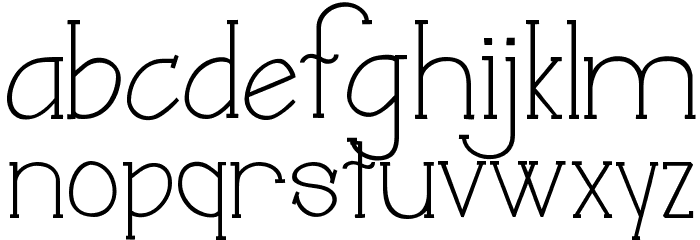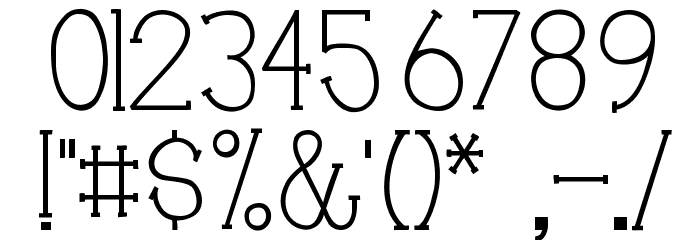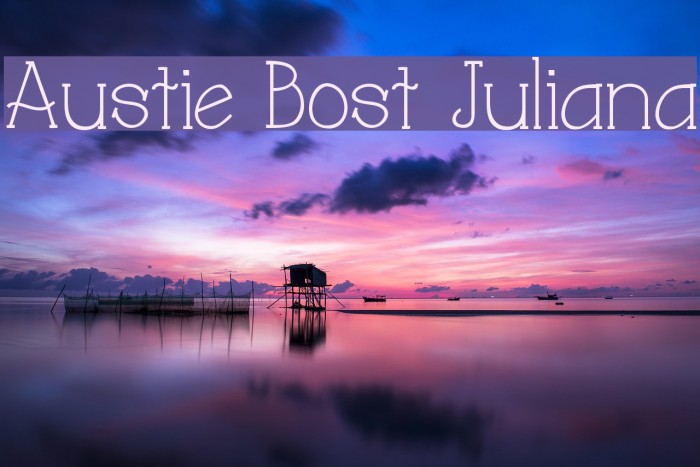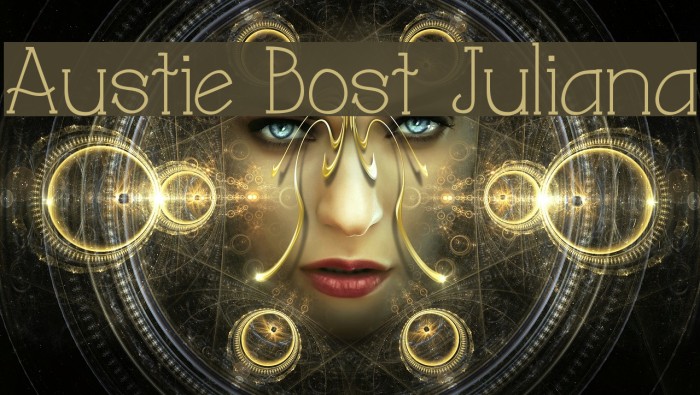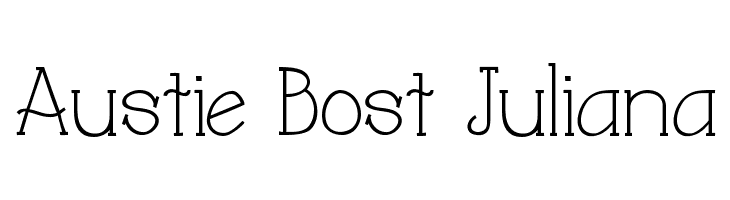
Austie Bost Juliana Font
This font features a playful and whimsical style, characterized by its tall, narrow letterforms and subtle curves. The uppercase letters have a distinctive flair with slightly exaggerated serifs, giving them a unique and artistic appearance. The lowercase letters maintain a consistent style, with rounded edges and a friendly, approachable feel. The numerals are clear and legible, matching the overall aesthetic of the font. Special characters are creatively designed, adding to the font's charm. This font is perfect for projects that require a touch of creativity and personality.
A playful and whimsical font with tall, narrow letterforms and subtle curves.
- Proposed Projects: Ideal for children's books, greeting cards, playful branding, and creative posters.
- Overall Style: Whimsical, Playful
- Use Case: Headlines, Logos, Creative projects